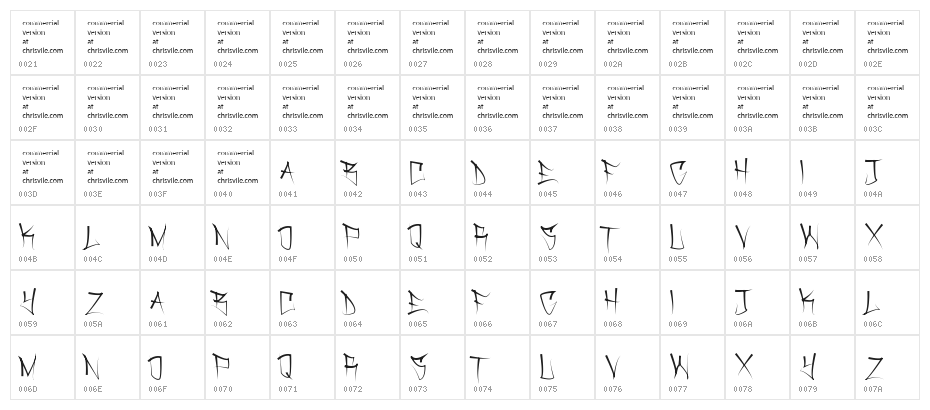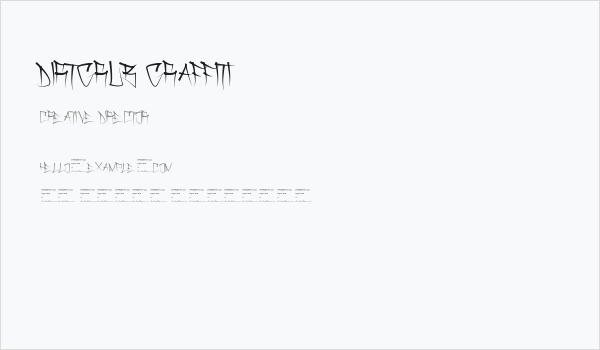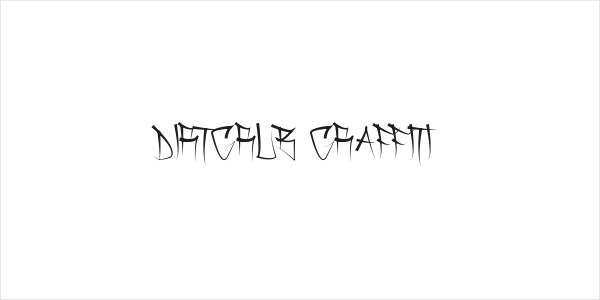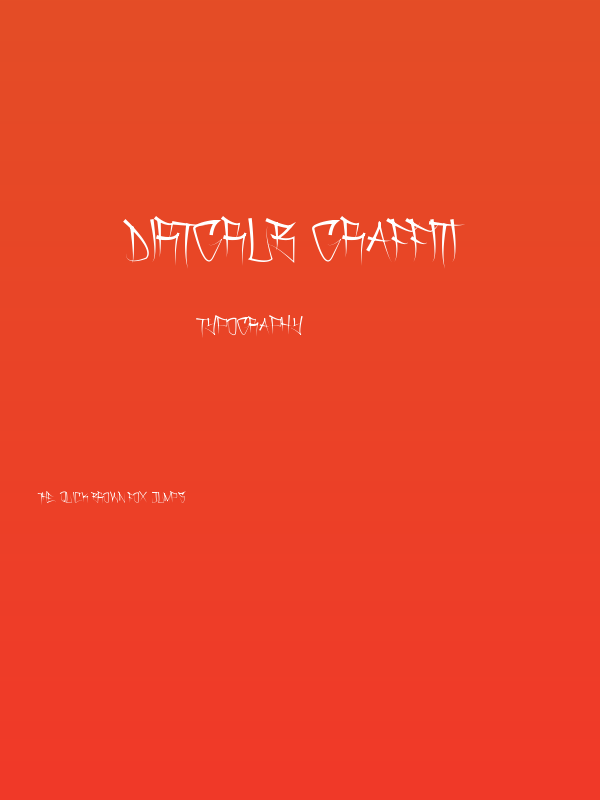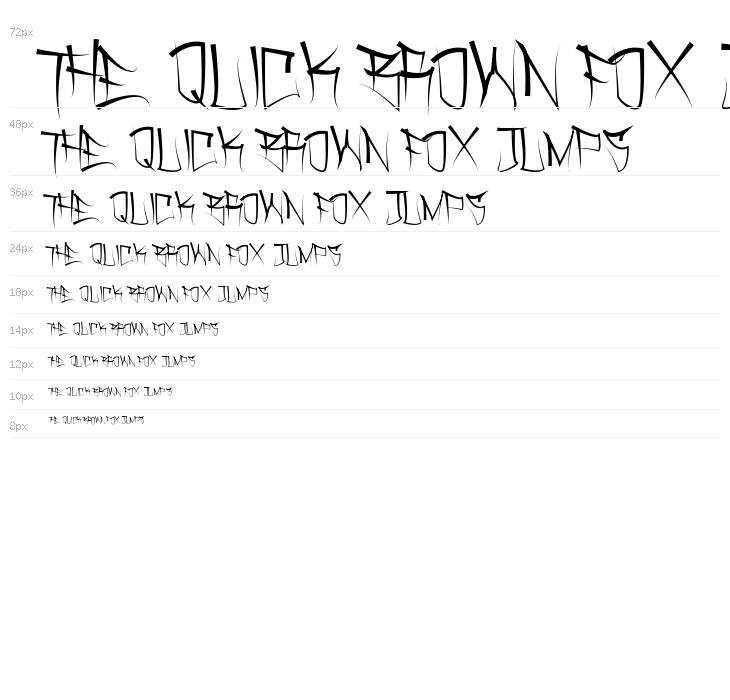
Dirtgrub Graffiti Font
Dirtgrub Graffiti Description
This graffiti-style font features sharp, angular lines and a dynamic, edgy appearance. The characters are designed with a sense of movement and energy, incorporating elongated strokes and pointed edges that give it a rebellious and urban feel. The uppercase letters are particularly striking, with exaggerated forms that create a sense of drama and intensity. The lowercase letters maintain the same stylistic elements, ensuring consistency throughout. This font is perfect for projects that require a bold, street-art aesthetic, capturing the essence of graffiti culture.
| Overall Style | Modern, Urban |
| Proposed Projects | Ideal for street art projects, urban-themed posters, edgy branding, and music album covers. |